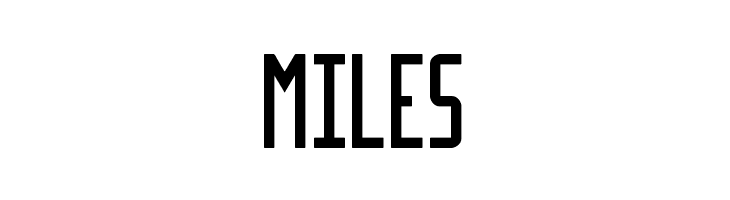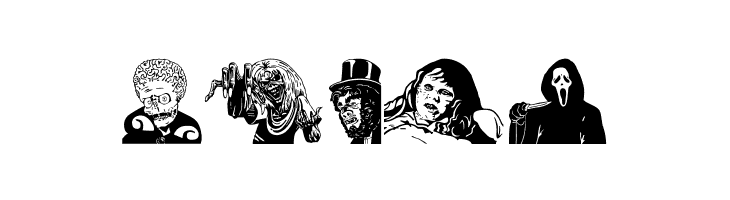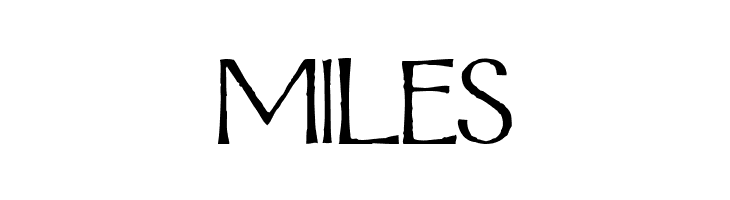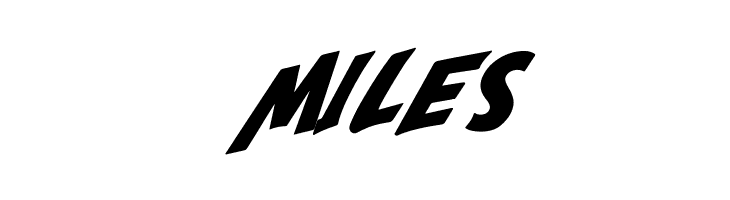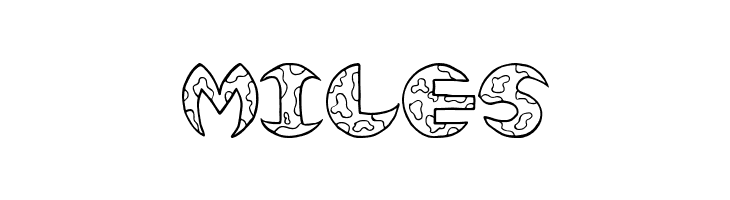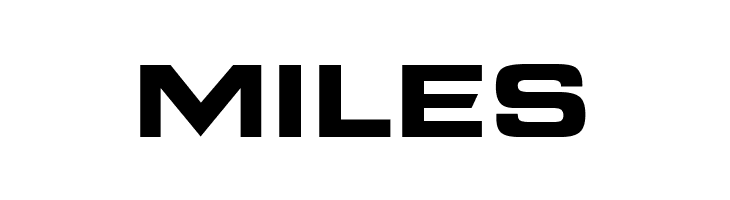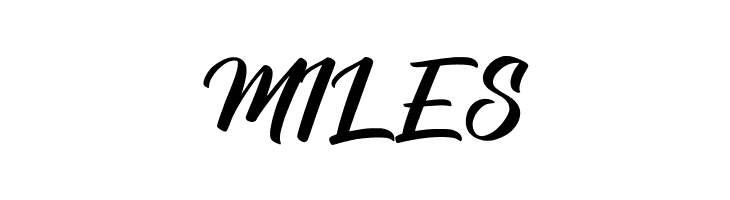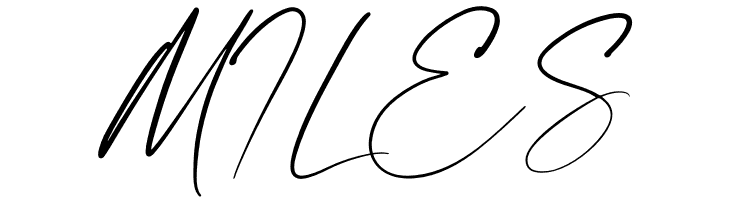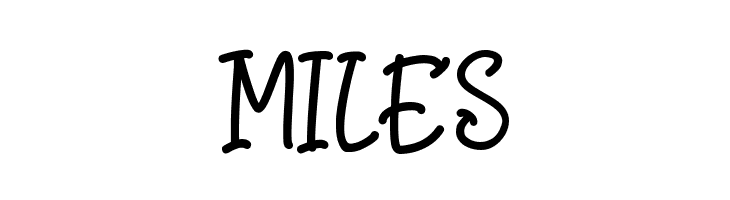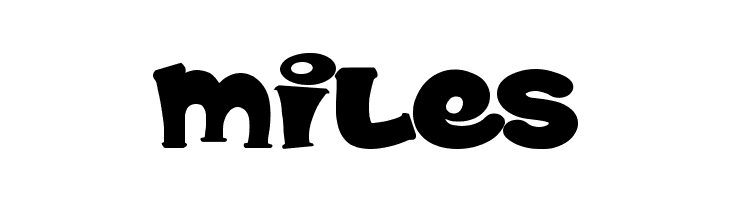
A classic serif font with a textured, vintage appearance.
A bold, expressive script font with a dynamic, handwritten style.
Bold, festive display font with jagged, playful edges.
A bold, modern font with geometric shapes and tight spacing.
A bold, geometric font with a modern and minimalistic style.
An elegant, flowing script font with a modern, handwritten style.
A bold, distressed font with a hand-drawn, textured appearance.
A bold, textured font with a distressed, hand-drawn style.
An elegant script font with flowing, intricate loops and swashes.
A bold, playful font with rounded, whimsical characters.
An elegant, flowing script font with artistic flair and romantic accents.
A bold, playful font with rounded edges and a cohesive, slightly condensed style.
A bold, playful font with a spooky, Halloween-inspired design.
A bold, expressive script font with flowing, cursive letterforms and dynamic slant.
A bold, italic, and dynamic font with a strong sense of movement.
A bold, jagged font with a rugged, hand-drawn style.
A jagged, edgy font with sharp, irregular strokes and a hand-drawn appearance.
A dynamic, cursive script font with expressive flourishes and ink-like texture.
A playful, bold font with whimsical, cartoon-like characters.
A bold, rounded font with a playful and chunky style.
An elegant, flowing script font with a classic calligraphic style.
A modern, geometric font with clean, rounded edges and uniform stroke width.
A bold, three-dimensional font with a playful and dynamic style.
A playful, bold handwritten font with irregular, organic letterforms.
An elegant serif font with classic, refined characters and slight stroke contrast.
A modern, elegant script font with flowing, cursive characters.
A bold, playful font with abstract, patterned interiors and thick outlines.